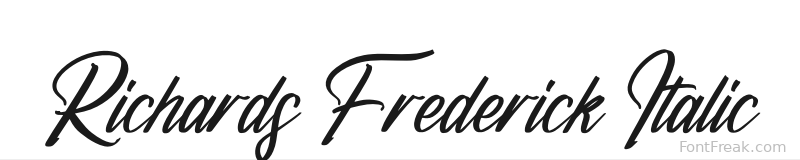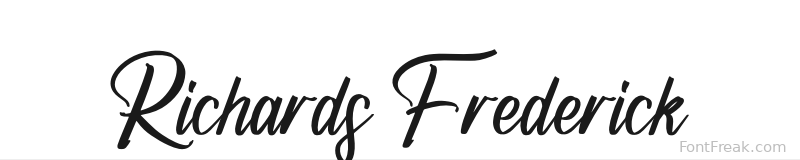
Richards Frederick
Richards Frederick Italic
About Richards Frederick
Richards Frederick, created by Perspectype Studio in 2021, is a captivating script font that effortlessly combines elegance with a contemporary flair. This typeface features a fluid, cursive style characterized by its graceful curves and elongated ascenders and descenders. The strokes exhibit a moderate contrast, lending an air of sophistication while ensuring readability. The spacing is well-balanced, allowing for smooth flow, which makes it versatile across various design applications. The decorative elements, such as the elegantly swooping tails and artistic ligatures, add an extra layer of charm, making it an eye-catching choice.
This font is particularly well-suited for a variety of creative projects. It shines in wedding invitations, where its romantic style can beautifully convey love and elegance. Additionally, it is an excellent choice for restaurant menus, adding a touch of sophistication that can enhance the dining experience. Movie posters can also benefit from the dynamic flair of Richards Frederick, helping to capture the essence of the film. Furthermore, it works wonderfully for branding purposes, especially for businesses looking to portray a stylish and modern image.
What truly sets the Richards Frederick font apart is its unique blend of elegance and modernity. It stands out not just for its aesthetic appeal, but also for its versatility across different mediums and applications. Whether you're crafting high-end marketing materials or personal projects, this font will undoubtedly make a lasting impression. Don't miss the chance to enhance your designs with the Richards Frederick font free download.